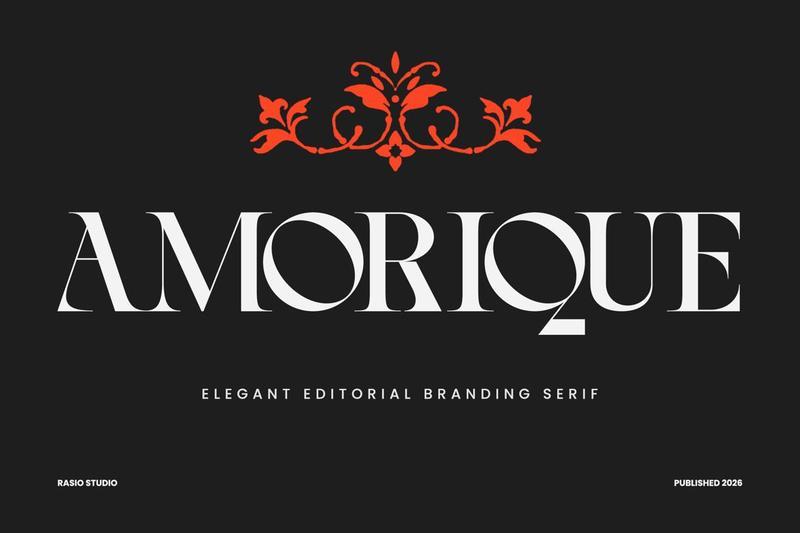
**Amorique Editorial Branding Serif Font** is a sophisticated display typeface defined by sharp high-contrast strokes, refined proportions, and distinctive sculpted terminals. Inspired by luxury editorials and classic fashion typography, the design combines slender vertical stems with graceful curves and geometric counters, creating a striking visual rhythm that feels both timeless and contemporary.The typeface features carefully crafted letterforms with subtle wedge serifs and expressive details that add character without compromising clarity.
Amorique includes uppercase and lowercase characters, numerals, punctuation, that allow designers to create sophisticated typographic compositions with ease. Designed for premium visual communication, the typeface delivers excellent readability and refined contrast across both print and digital applications, making it suitable for projects that require typography to become a central visual element.Its elegant structure and balanced spacing produce a strong visual presence in headlines, while unique characters such as the stylized and numerals introduce individuality and a memorable editorial personality.
**Suitable For:** Amorique is perfect for Fashion editorials, Luxury lifestyle publications, Jewelry collections, Fragrance and cosmetic packaging, Boutique brand identities, Magazine covers and feature spreads, Wedding invitation suites, Hospitality and fine dining concepts, Premium product labels, Book and album covers, Creative direction presentations, Advertising campaigns, Social media art direction, Lookbooks and catalogs, Visual identity systems, High-end stationery collections, Personal branding materials, Event collateral, Retail packaging concepts, Sophisticated logo development projects.